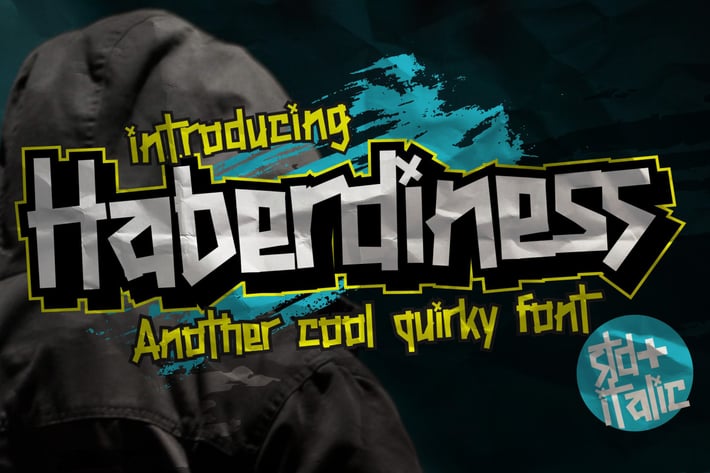
AN Haberdiness - Quirky Typeface
Introducing Haberdiness, inspired from Punk Music and street culture, recreated for modern branding.
You can use and enjoy this Font for anything from promotional material and poster quotes, to product packaging, merchandise and branding projects
And this font perfect for logo, packaging, magazine, sport, poster, apparel, title, social media post, ad banner, book cover, poster quotes, greeting cards and advertising.
+ Standard, and Italic glyphs